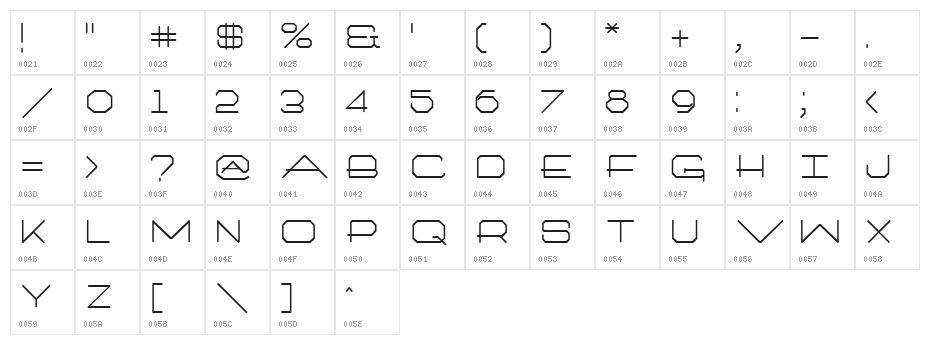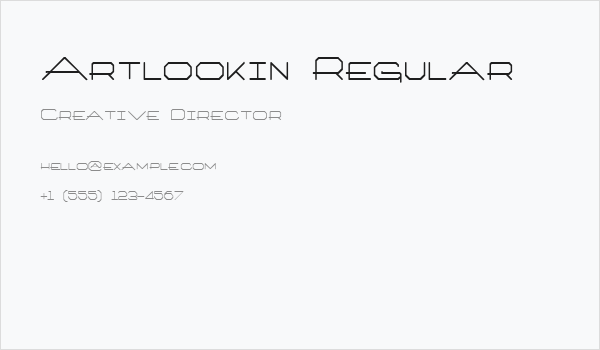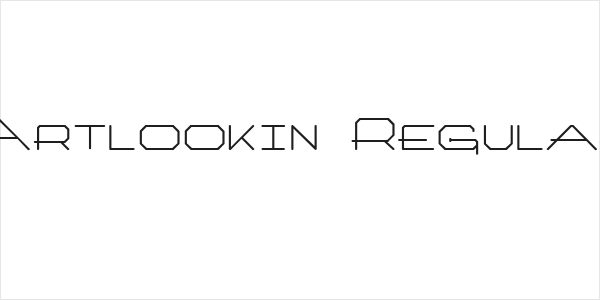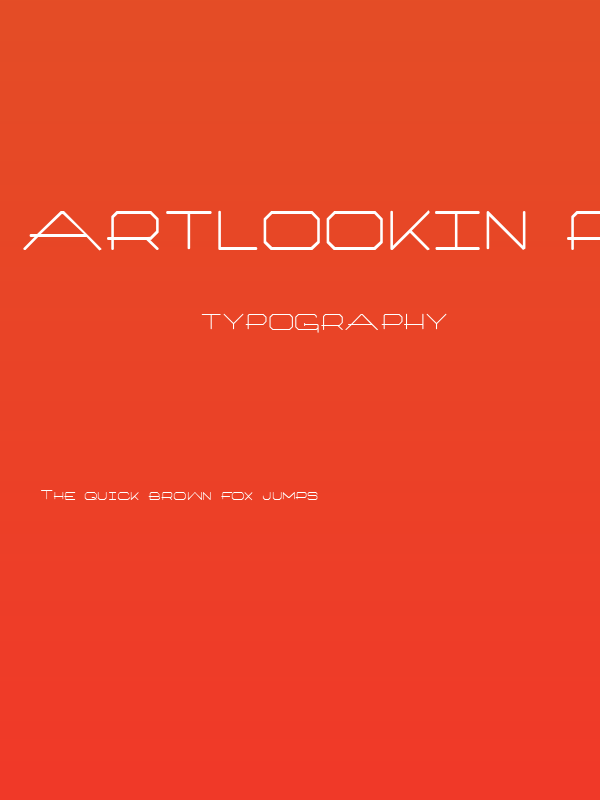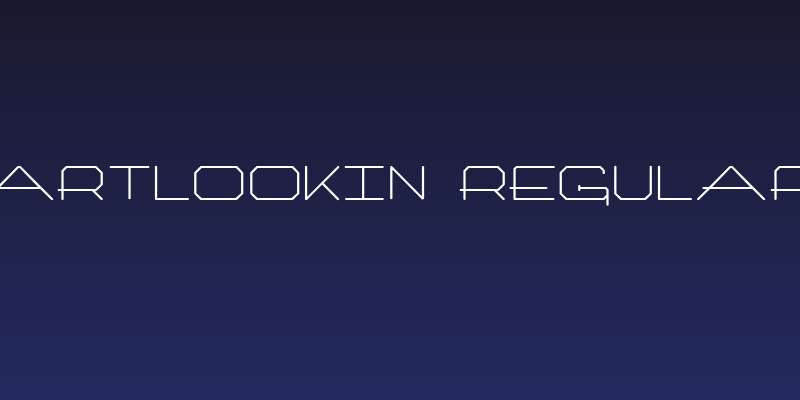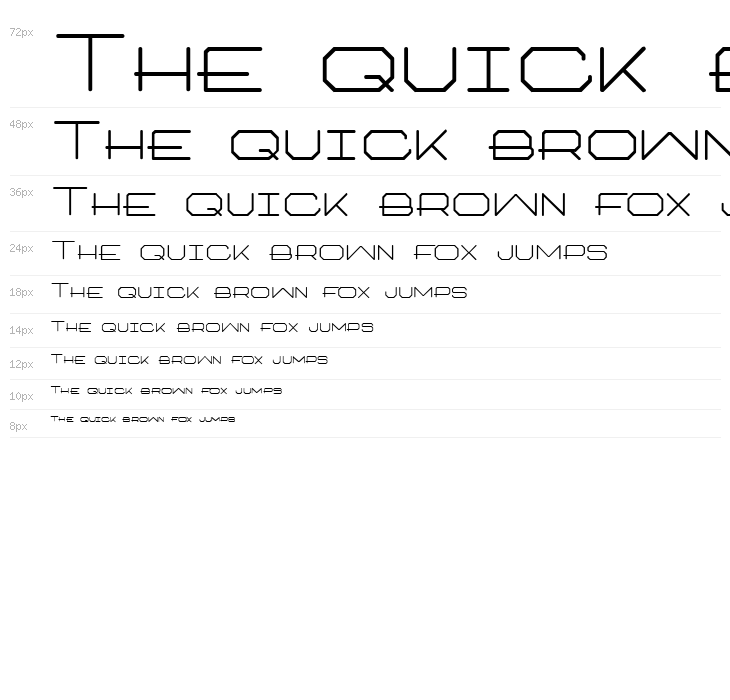
Artlookin Regular Font
Artlookin Regular Description
This font features a geometric and angular design, characterized by its distinct, sharp edges and linear structure. Each character is constructed with a series of straight lines and angles, giving it a futuristic and technical appearance. The uppercase and lowercase letters maintain a consistent style, with the uppercase letters being slightly more prominent. The numerals and special characters follow the same geometric pattern, ensuring uniformity across the font. This design is highly legible and stands out due to its unique, modern aesthetic.
| Proposed Projects | Ideal for technology branding, sci-fi themed projects, modern art installations, and digital interfaces. |